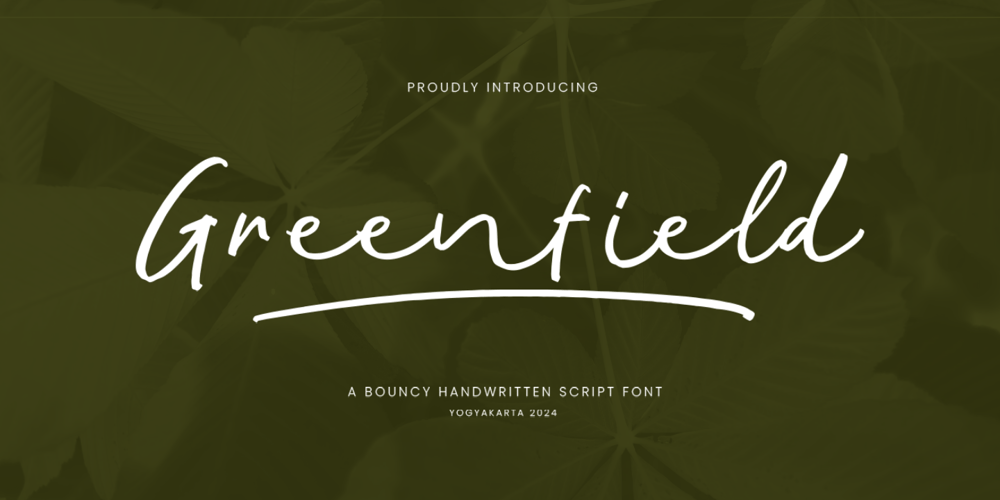
Greenfield Script Font Family was designed by Hendry Juanda and published by Letterhend. Greenfield Script contains 1 styles and family package options. Greenfield is here!- A bouncy handwritten script with a casual style that gives a deep impression. Its natural strokes add a touch of grace, perfect for everything from wedding invitations and brand logos to social media captions and beyond.Features : Uppercase & lowercase Numbers and punctuation Alternates & Ligatures Multilingual Support PUA encoded